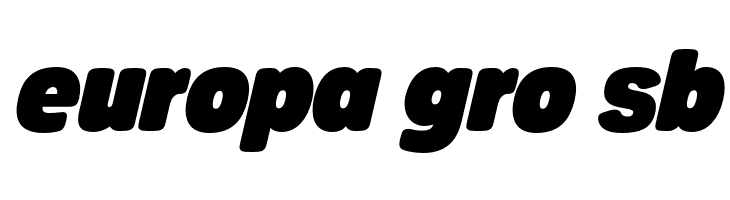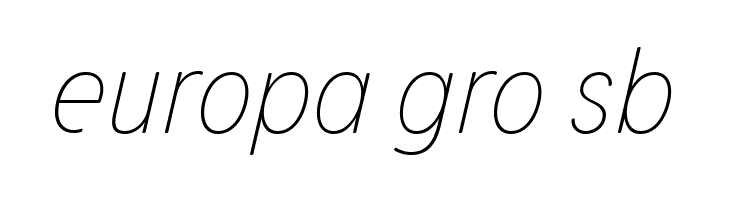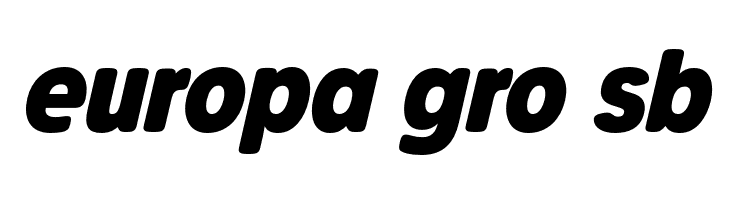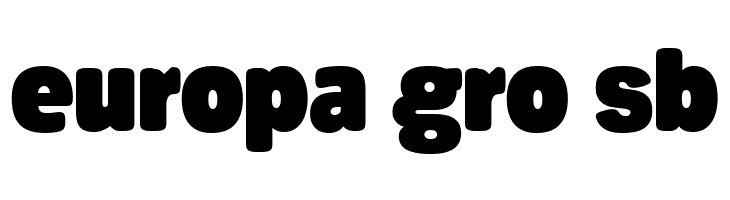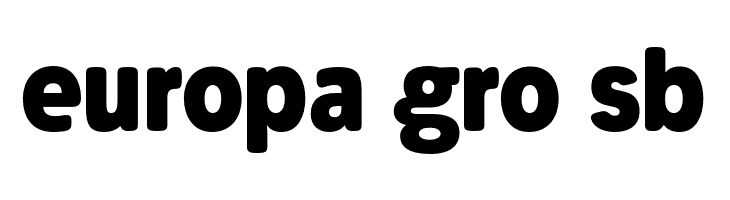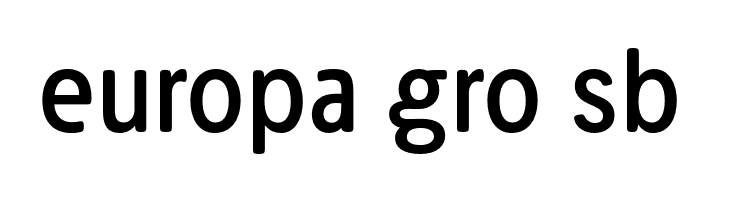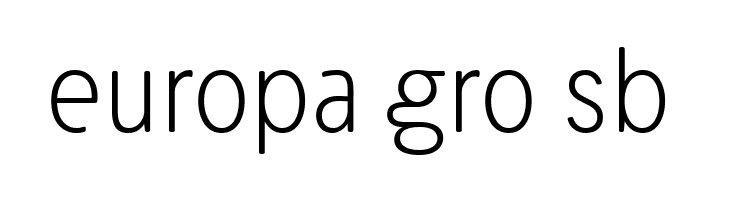
A bold, rounded, and italic font with a playful and dynamic style.
A sleek, modern, rounded, thin italic font with a refined aesthetic.
A bold, rounded, and italic typeface with a friendly and dynamic style.
A bold, rounded font with smooth curves and a playful, modern aesthetic.
A bold, rounded font with smooth curves and high readability.
A modern, rounded, extra light italic typeface with a friendly and elegant style.
A modern, rounded typeface with excellent readability and a friendly appearance.
A modern, rounded typeface with uniform strokes and excellent readability.
A rounded, modern font with smooth curves and consistent stroke width.
A bold, rounded font with a playful and modern style.